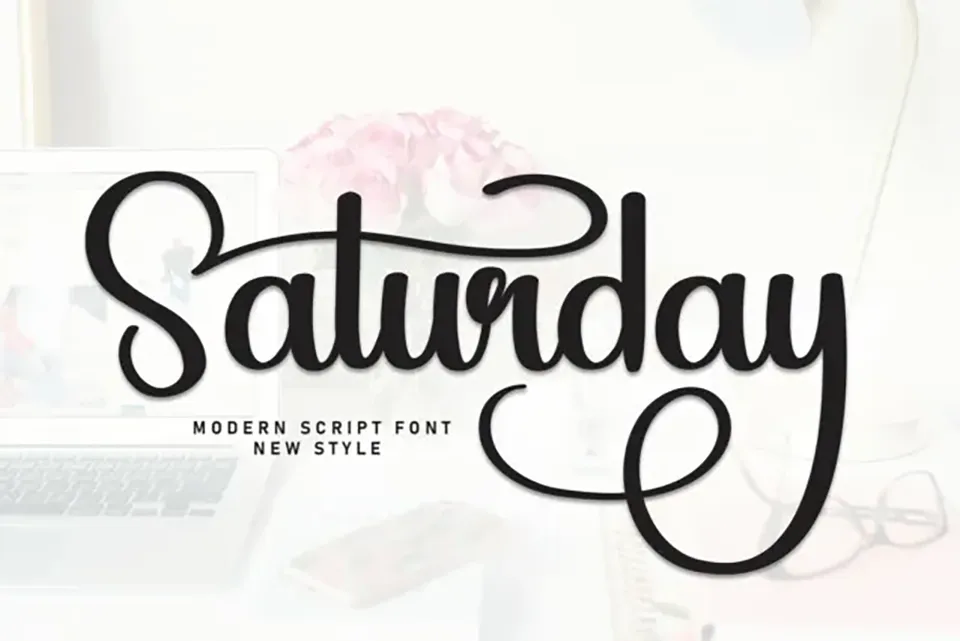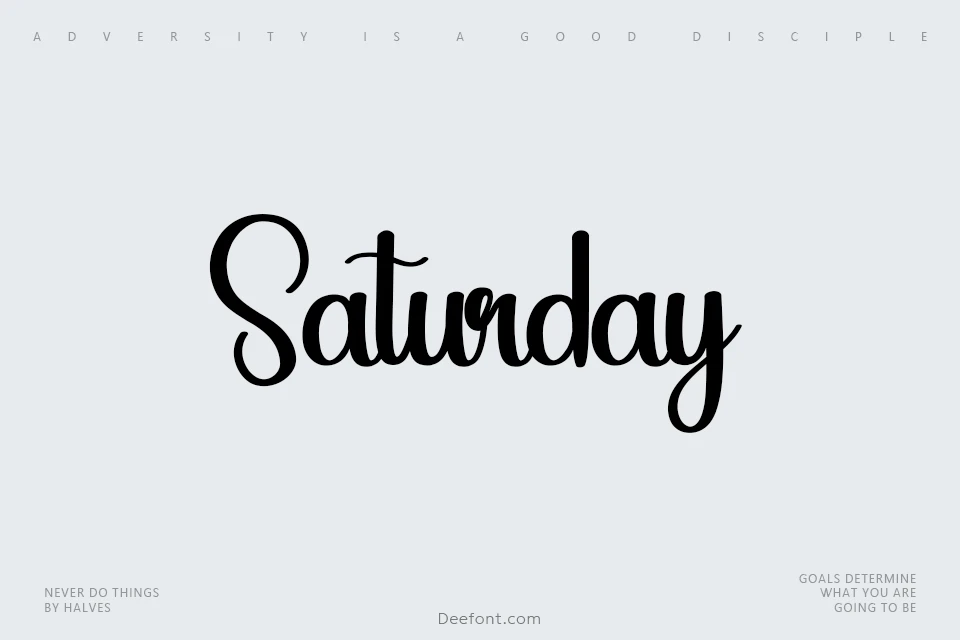
Saturday Calligraphy Font
Saturday Calligraphy Font is a modern script typeface with a fresh, new style. Its flowing curves and elegant letterforms make it perfect for adding a personal touch to invitations, stationery, and branding projects. This font captures a relaxed yet sophisticated vibe, making it ideal for designs that aim to be both stylish and approachable. With its clean lines and smooth finish, Saturday Calligraphy brings a contemporary feel to traditional calligraphy, ensuring your message is delivered with a unique and refined aesthetic.